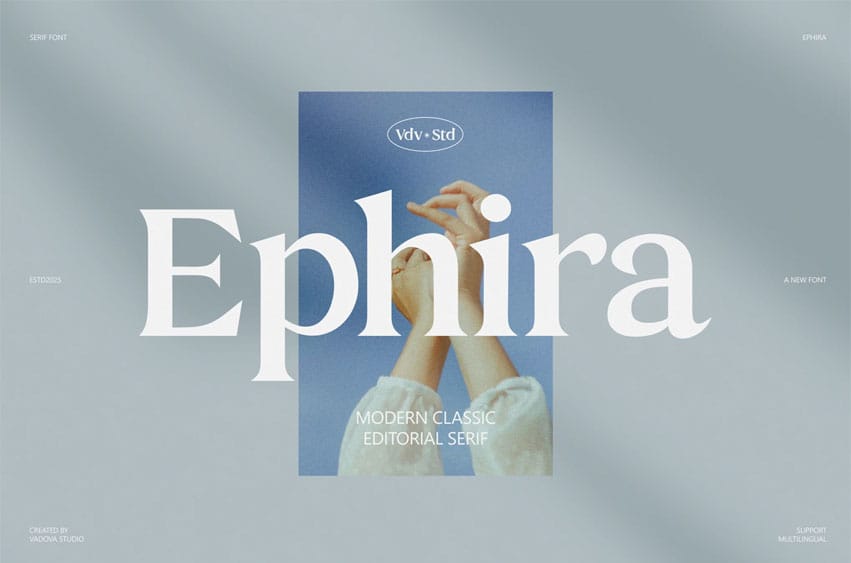
Ephira Font is a refined serif typeface that blends timeless elegance with modern versatility. Featuring graceful letterforms and full multilingual support, this font is ideal for upscale branding, editorial layouts, fashion boutiques, and lifestyle campaigns. Ephira adds a polished, sophisticated touch to logos, packaging, signage, and digital design, making it the perfect choice for projects that demand both beauty and clarity across languages and cultures.
- Uppercase & Lowercase characters